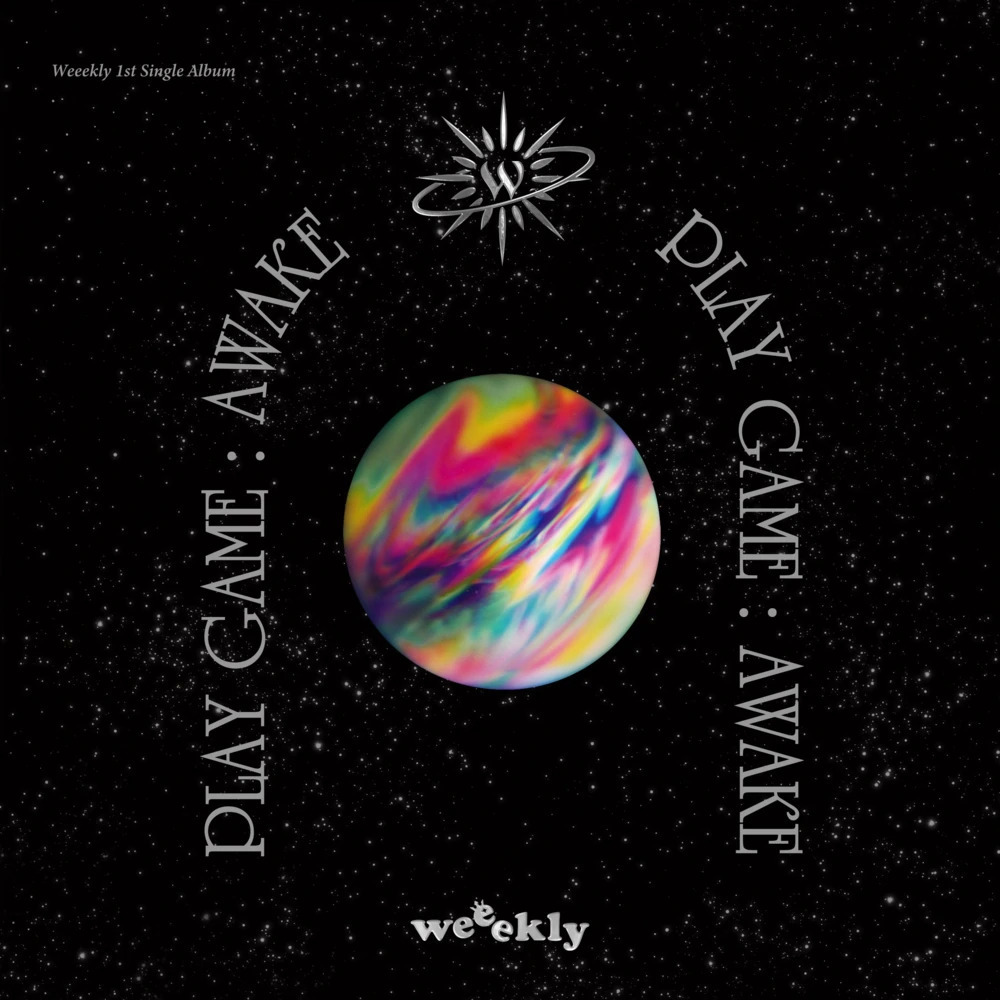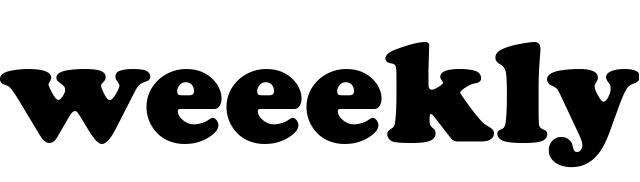
Play Game Awake Font
Fonts in UsePlay Game: Awake is the second mini album by the South Korean girl group Weeekly. Released on March 17, 2021, it features six tracks including the lead single "After School."
The album cover incorporates three different serif fonts: A modified version of University Roman appears in the album title, Cooper Black is used for the logo at the bottom, and Minion Medium Italic is employed for the small text in the top left corner.